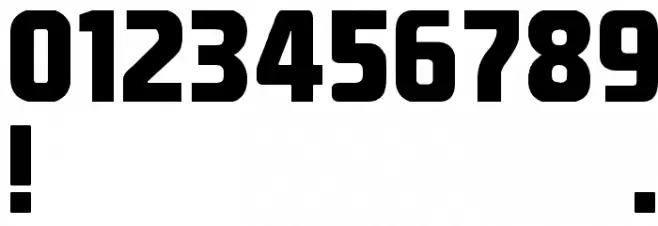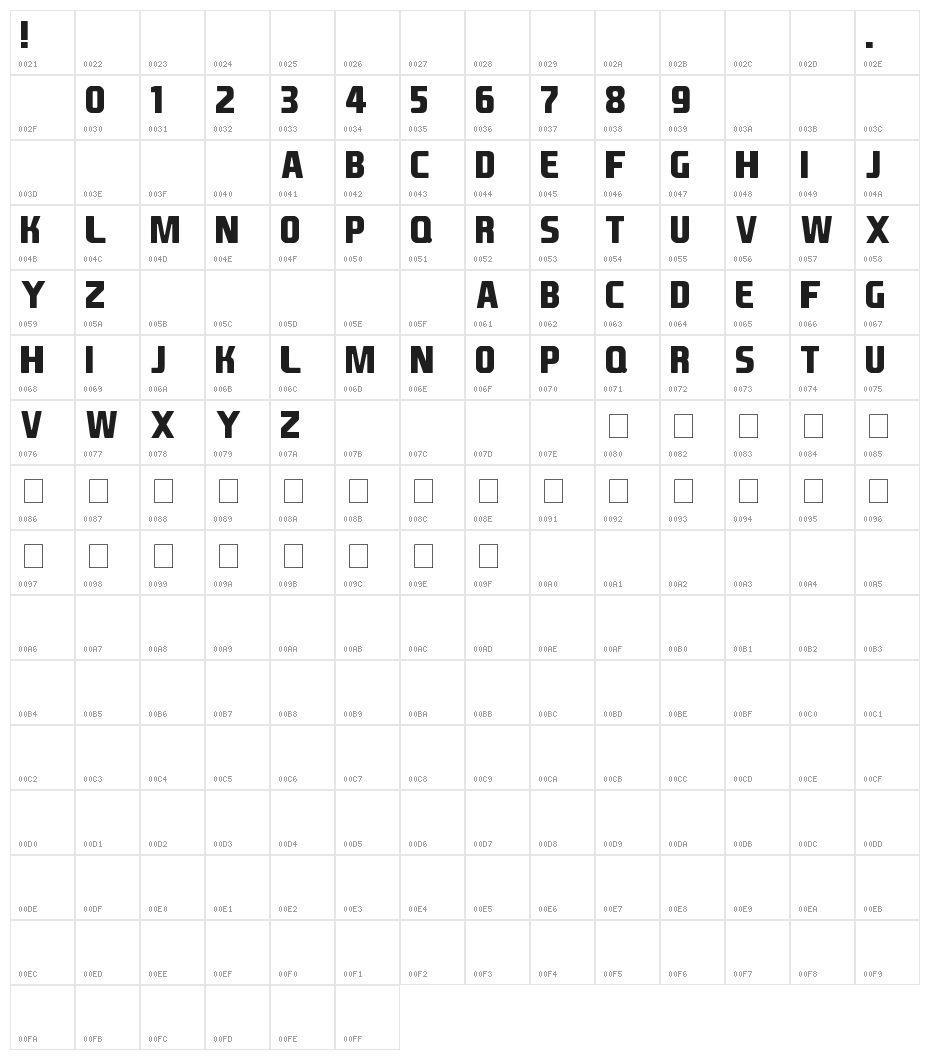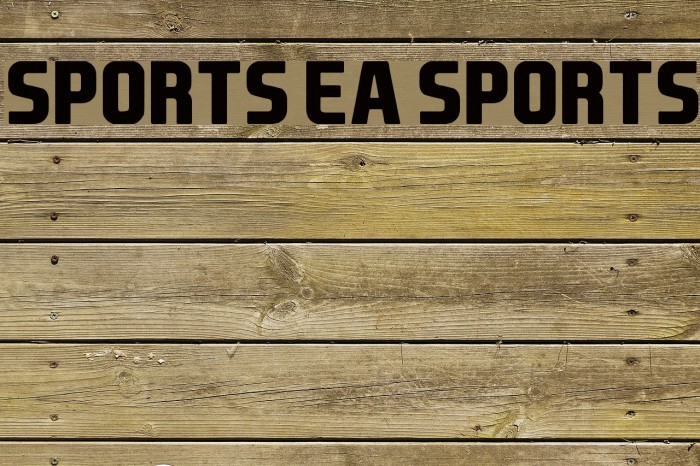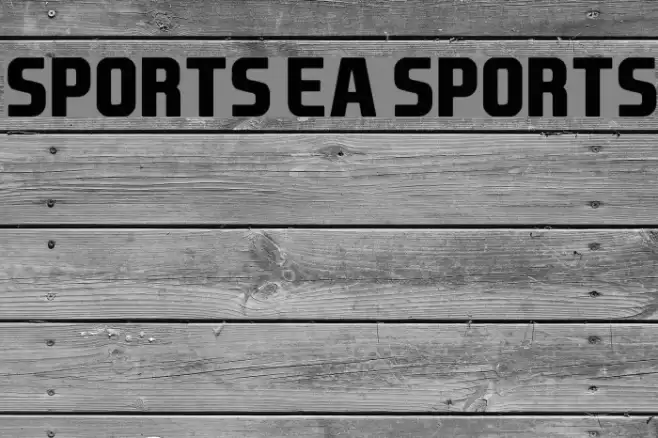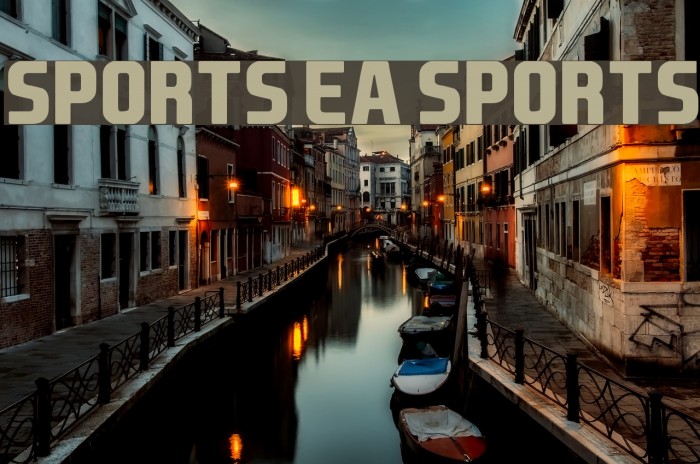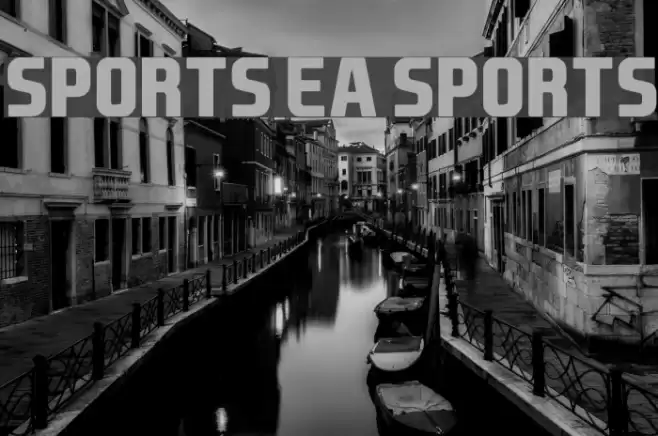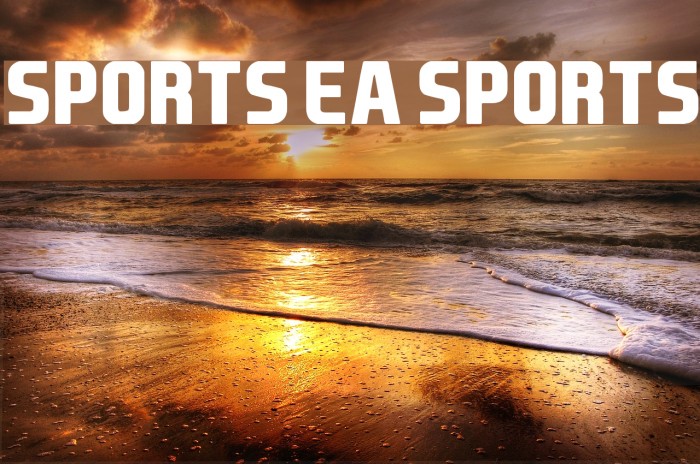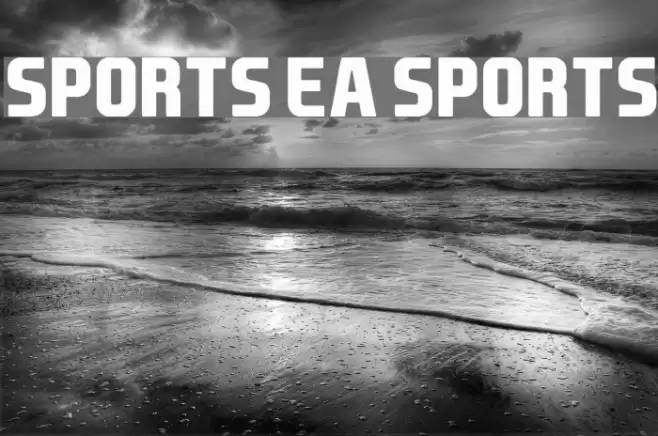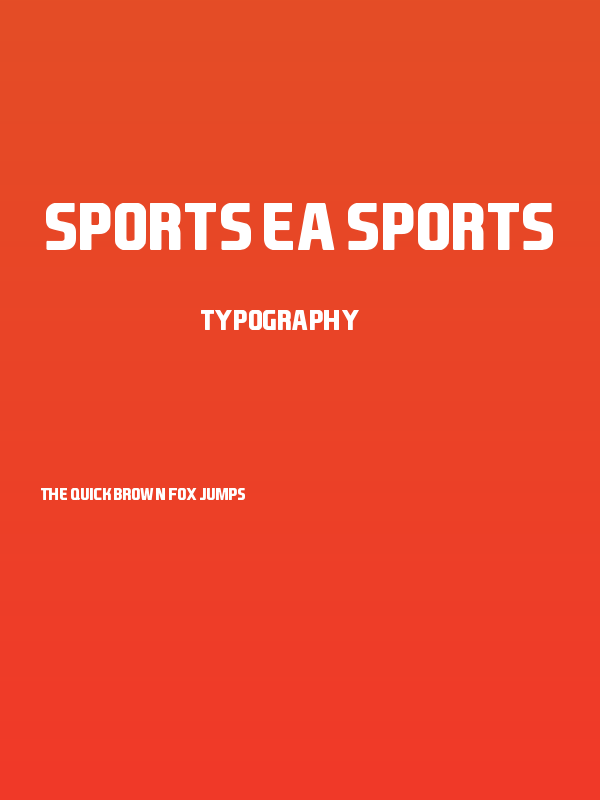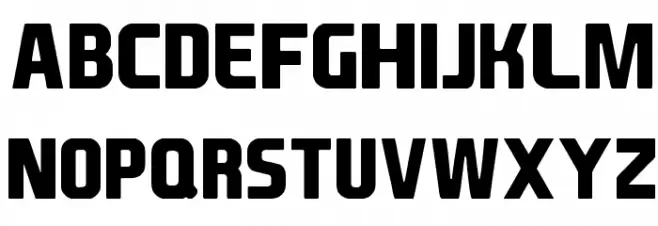
Sports EA Sports Font
Sports EA Sports Description
This font exhibits a bold and robust design, characterized by its strong geometric shapes and uniform stroke width. The uppercase letters are particularly striking, with a blocky and solid appearance that conveys a sense of strength and stability. The numerals and special characters maintain this consistency, ensuring a cohesive look across all characters. The font's design is modern and assertive, making it ideal for applications where a bold statement is necessary. Its clean lines and lack of serifs contribute to a contemporary feel, while the uniformity in character width and height ensures readability and impact.
| Proposed Projects | Ideal for sports branding, video game titles, posters, and any project requiring a strong, impactful typeface. |